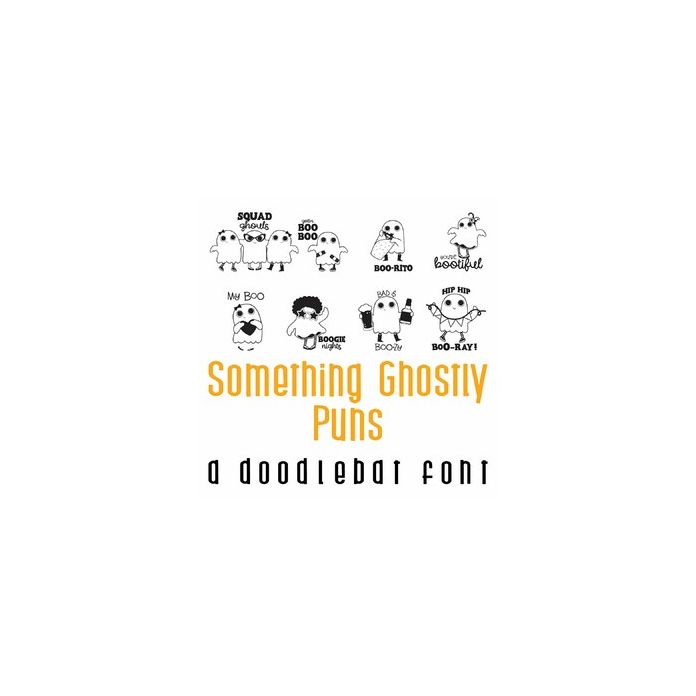
This adorable doodlebat font features 26 ghost puns. Perfect for Halloween, use this doodlebat to create fun decor, gifts, cards, scrap book pages, planner stickers, parties and more!